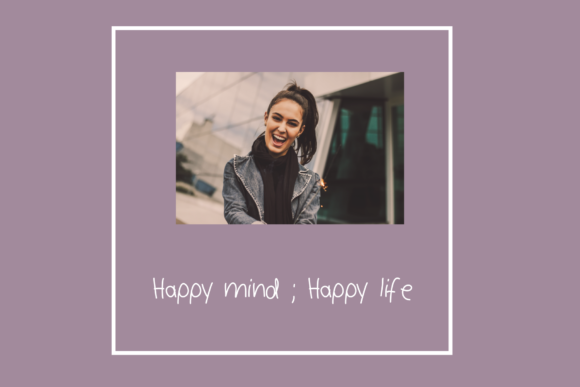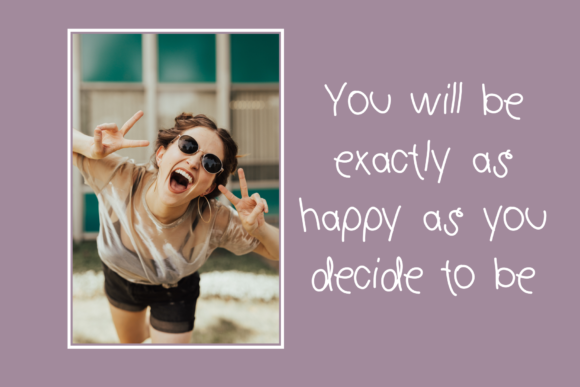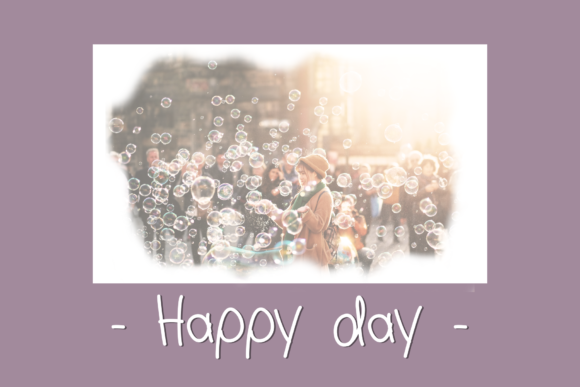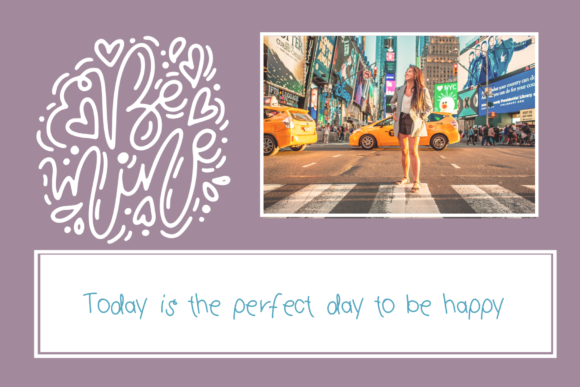
About Benjamin Font
Benjamin is a sweet and friendly handwritten font. Its natural and unique style makes it incredibly fitting to a large pool of designs. The only limit is your imagination!